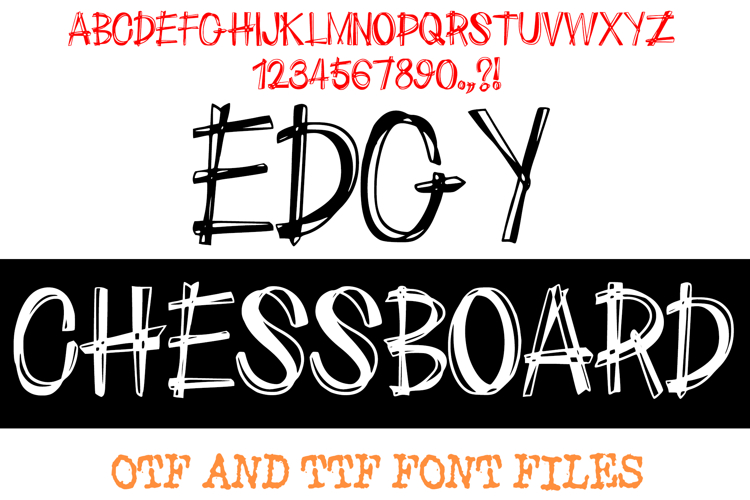
Edgy Chessboard Chequered Handwriting Alphabet Font Letters
Make your designs stand out with the unique strategy of Edgy Chessboard Font! This distinctive typeface brilliantly combines a bold, hand-drawn outline with a captivating internal grid-like pattern, reminiscent of a rough-hewn chessboard or a hastily marked blueprint. It's more than just a font; it's a strategic visual statement, designed to bring a raw, graphic, and intellectually rebellious flair to any creative project.
Each character in Edgy Chessboard Font is crafted with a strong, irregular outline, and its interior is crisscrossed with sharp, intersecting lines. This creates a fascinating blend of structured chaos and edgy precision, making it an ideal choice for game branding, escape room designs, urban fashion, tech-themed graphics, protest art, comic book titles, or any project that demands a bold, intellectual, and slightly rebellious presence.
Whether you're designing challenging puzzles, creating impactful headlines, crafting unique merchandise, or adding a graphic punch to digital art, this font delivers with uncompromising style. Its clear yet complex forms ensure readability while injecting an artistic texture that stands out dramatically from conventional typography.
If you're looking to infuse your designs with a sense of bold strategy, unique graphic texture, and undeniable visual intrigue, Edgy Chessboard Font is your ultimate move. Checkmate your creative challenges!